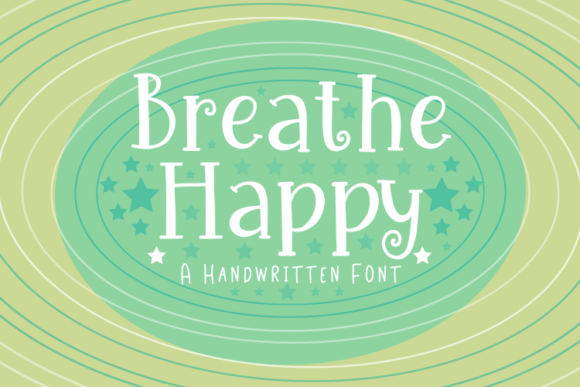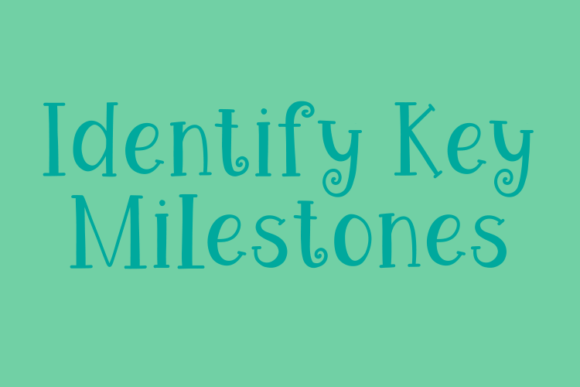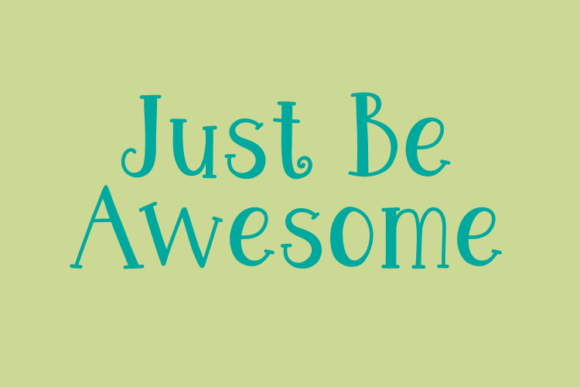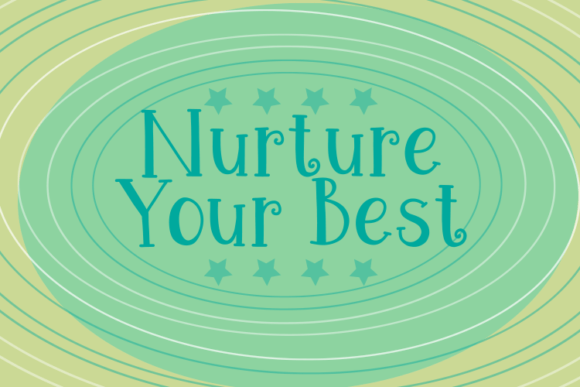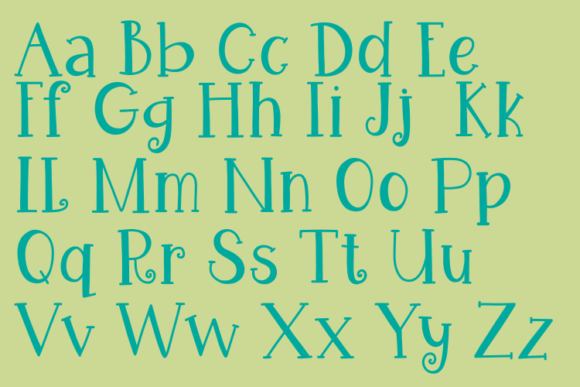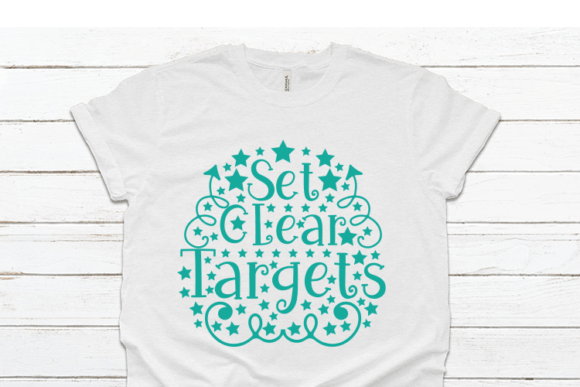
Breathe Happy Font
**Breathe Happy Font: Embrace Playful Creativity**
Breathe Happy is a one-of-a-kind handwritten font that exudes playfulness and creativity. Its unique and quirky style opens up exciting design opportunities across various mediums. Here’s how you can make the most of Breathe Happy in your creative projects:
1. **Branding:** Inject a playful and distinctive personality into your brand with Breathe Happy. Use it for logos, taglines, and brand identity to stand out from the crowd.
2. **Logo Design:** Create memorable and whimsical logos with Breathe Happy. Its quirky nature adds a touch of charm and uniqueness to your brand’s visual identity.
3. **Book Covers:** Design eye-catching book covers for children’s books, fantasy novels, or any genre that calls for a fun and imaginative approach. Breathe Happy’s playful vibe sets the tone for adventurous stories.
4. **T-Shirt Design:** Craft trendy and lighthearted T-shirt designs that appeal to a youthful and fun-loving audience. Breathe Happy’s unique characters make your designs pop.
5. **Crafting:** Elevate your crafting projects with Breathe Happy. From personalized cards and scrapbooking to DIY decor, this font adds a handmade and playful touch.
6. **Greeting Cards:** Create cheerful and whimsical greeting cards for birthdays, celebrations, and special occasions. Breathe Happy captures the essence of joy and happiness.
7. **Websites:** Use Breathe Happy in web design for elements like headers, buttons, and banners to infuse your site with a sense of fun and creativity.
8. **Posters and Flyers:** Design attention-grabbing posters and flyers for events, parties, or promotions. Breathe Happy’s quirky style ensures your message doesn’t go unnoticed.
9. **Social Media Graphics:** Make your social media posts stand out with Breathe Happy. Use it for captions, quotes, or overlays to add a playful twist to your content.
10. **Packaging:** Give your product packaging a unique and memorable look. Breathe Happy adds a touch of whimsy to labels and packaging designs.
11. **Craft Beer Labels:** Design fun and quirky labels for craft beers or artisanal beverages. Breathe Happy’s character complements the craft theme.
12. **Kids’ Products:** Create vibrant and playful designs for children’s products like toys, stationery, and clothing. Breathe Happy captures the imagination of young audiences.
13. **Event Invitations:** Craft invitations for themed parties, baby showers, or playful gatherings. Breathe Happy sets the tone for a joyful and memorable event.
14. **DIY Projects:** Incorporate Breathe Happy into DIY projects such as home decor, custom mugs, and personalized gifts for a fun and whimsical touch.
15. **Art Prints:** Design art prints that inspire creativity and happiness. Breathe Happy’s unique charm makes it an excellent choice for wall art.
Embrace the playful creativity that Breathe Happy brings to your design projects. Its quirky and distinctive handwritten style adds a sense of joy and whimsy, making it a valuable asset for creating visually engaging and memorable designs. Let your imagination run wild with Breathe Happy as you breathe life into your creative endeavors.